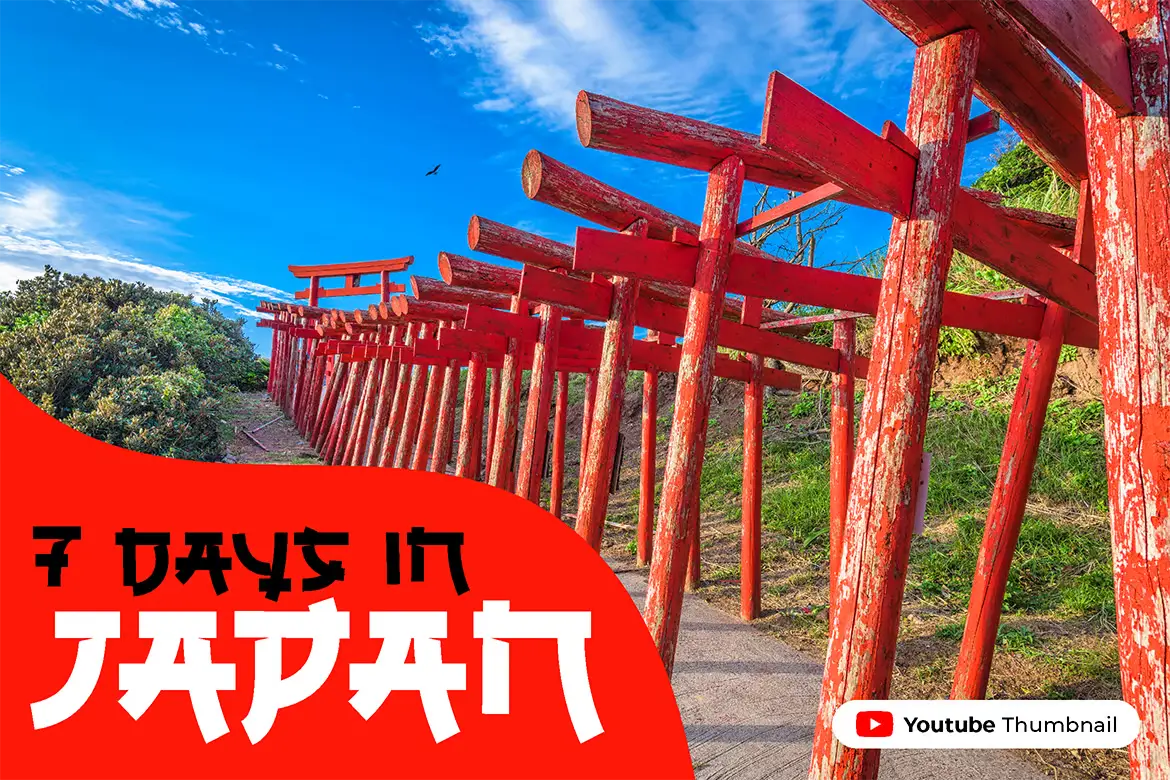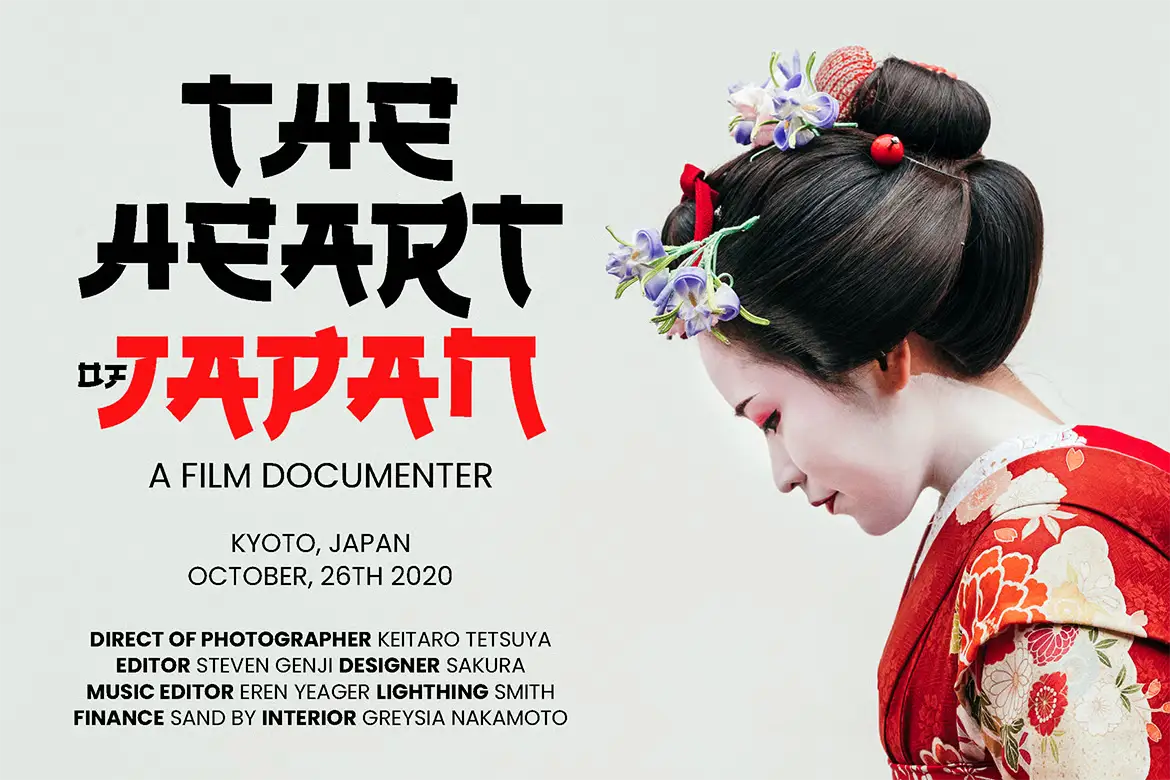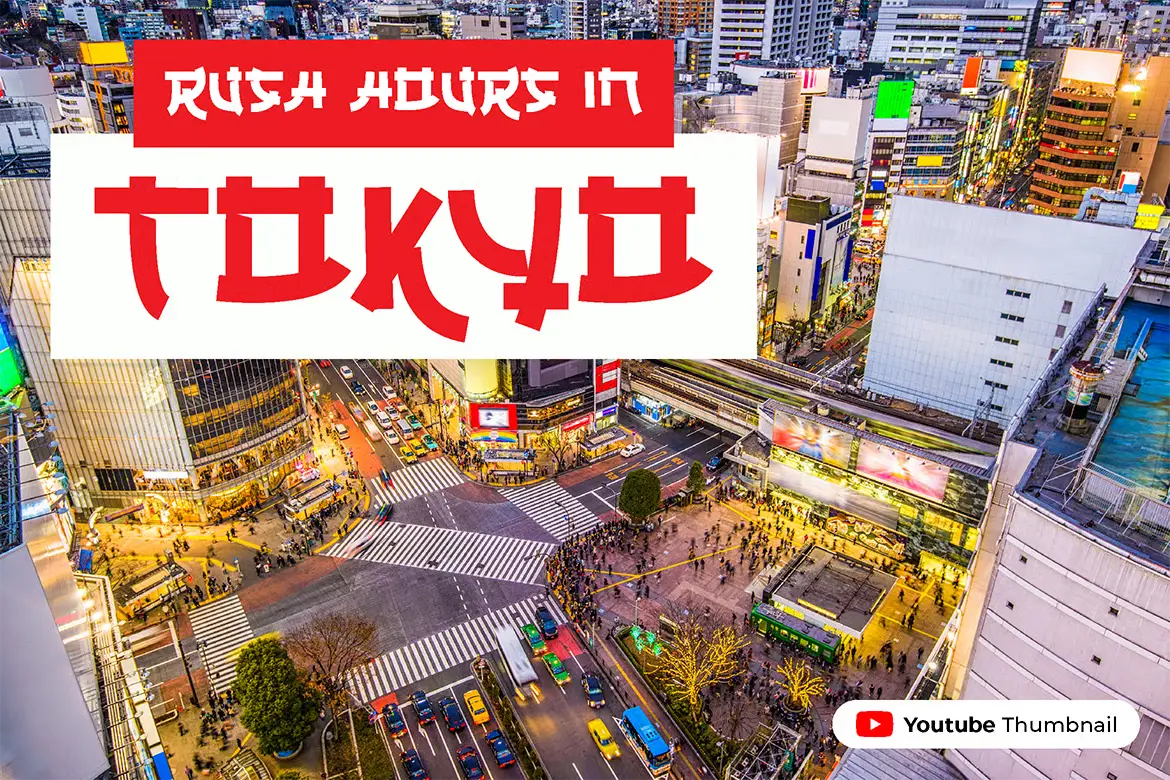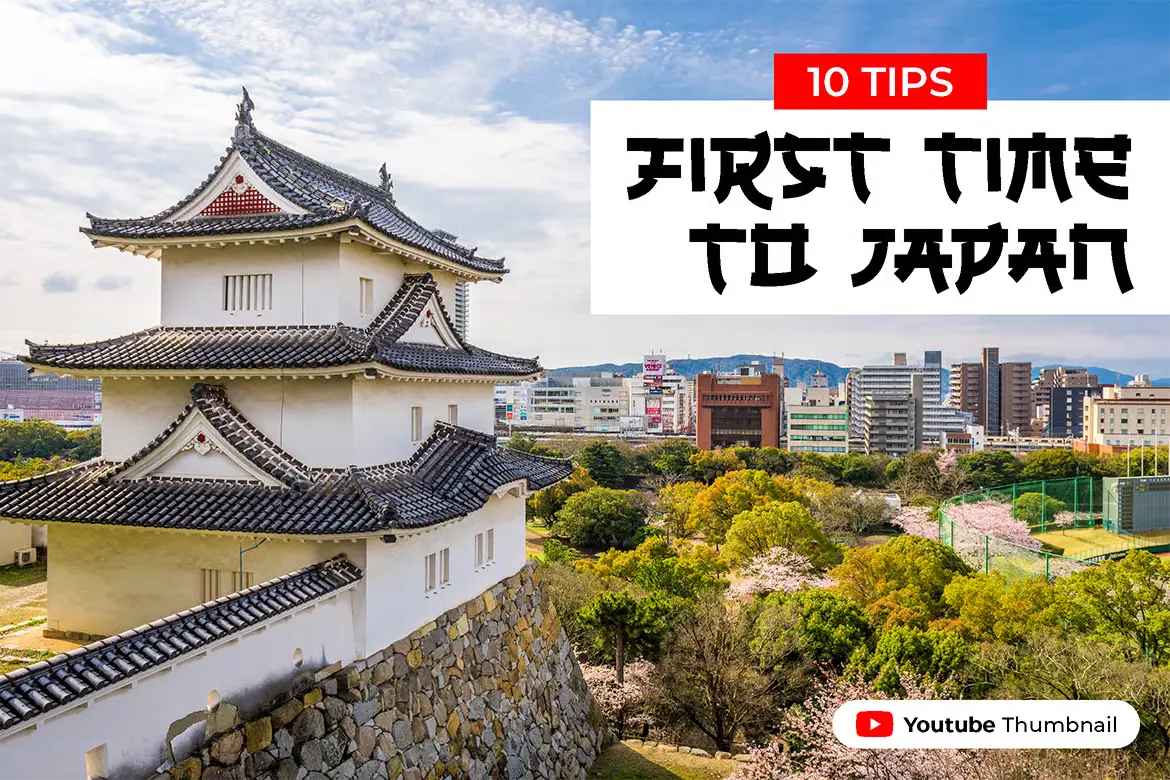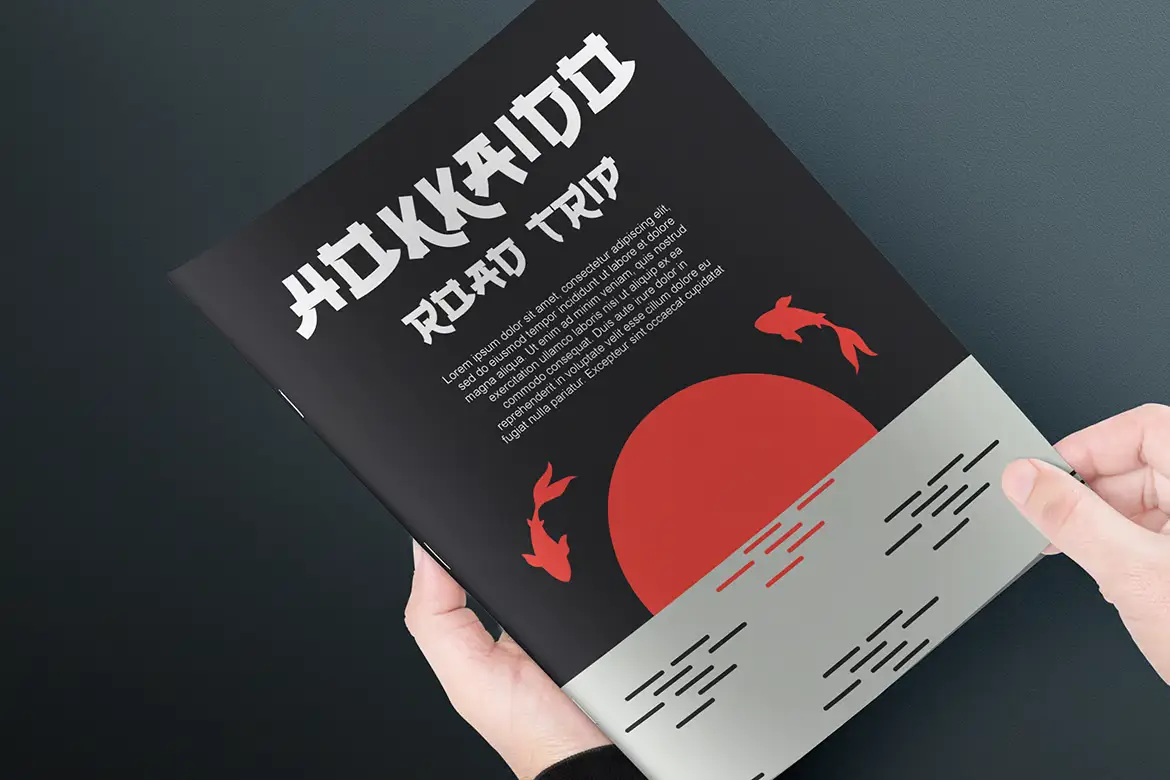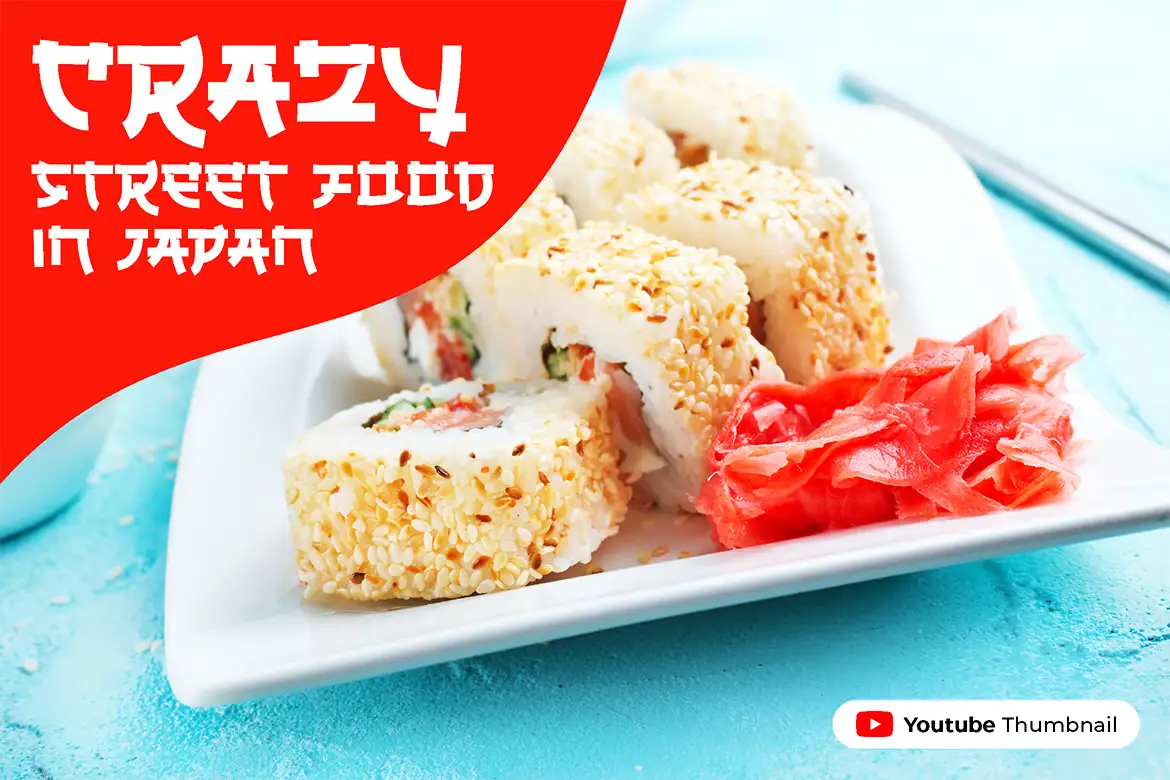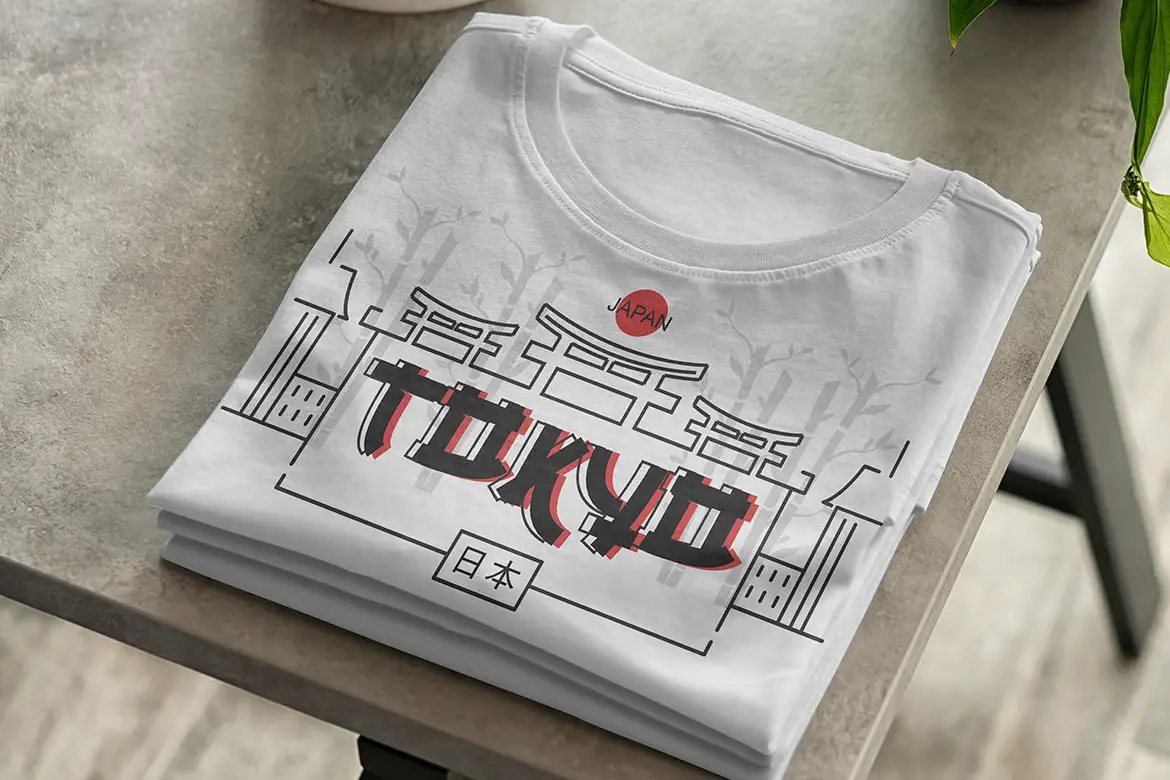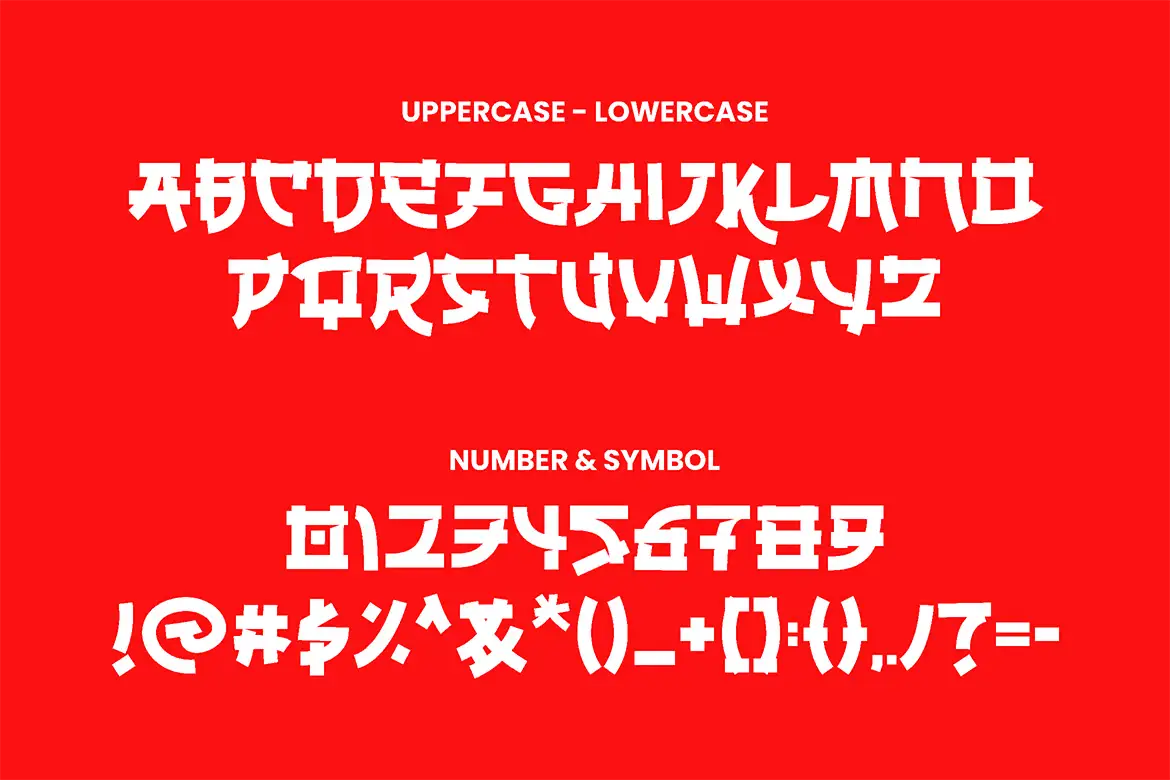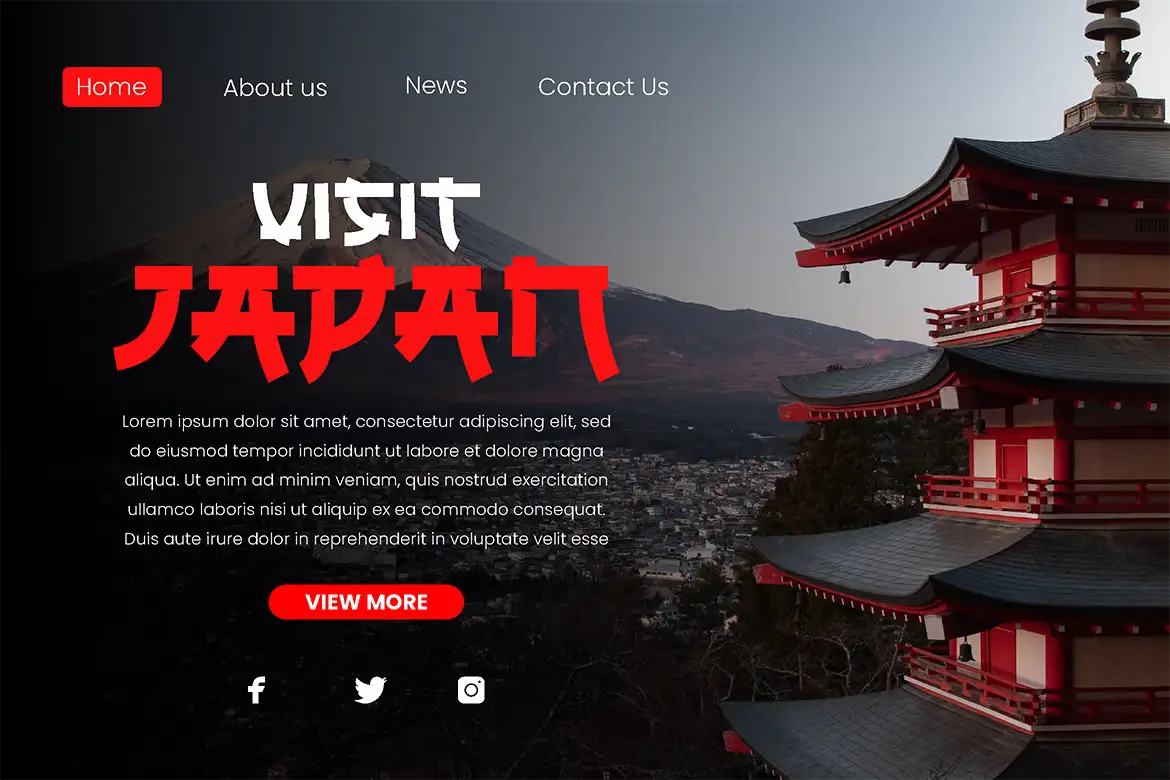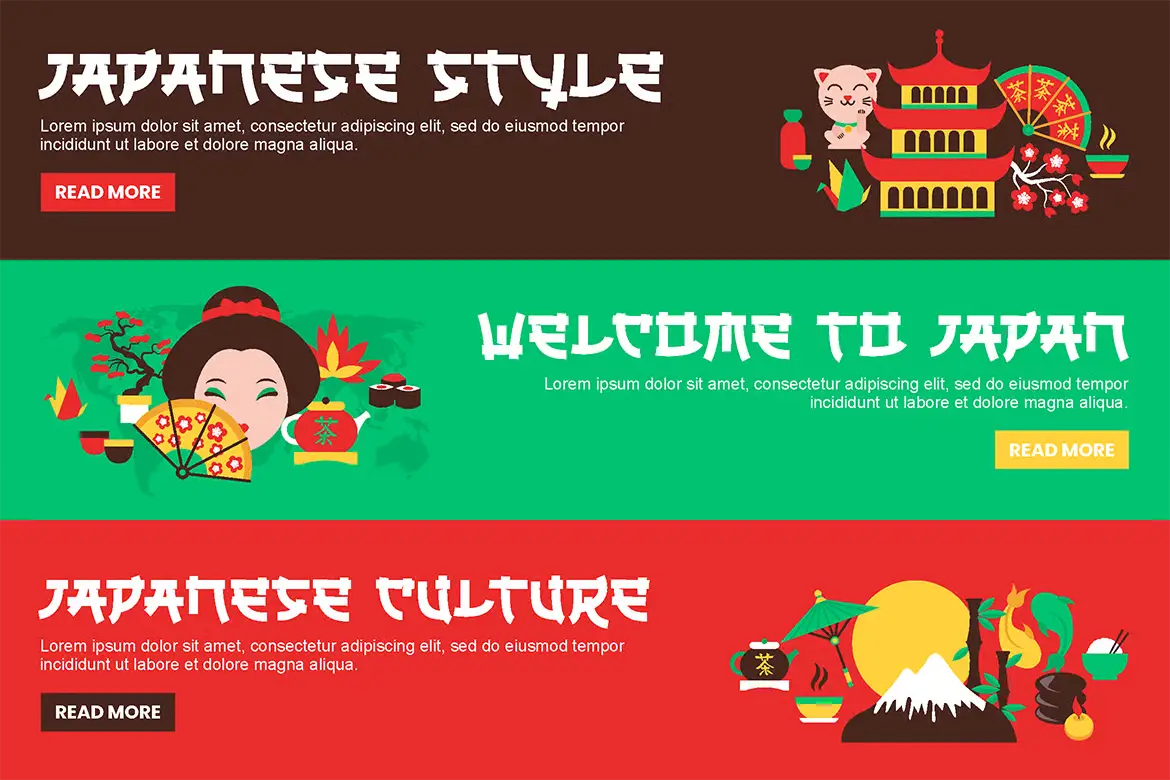
Ungai – Faux Japanese Asian Font
Introducing Ungai, a bold display font that pays homage to Japanese aesthetics. With its blocky, geometric strokes and stylized terminals, Ungai captures the essence of East Asian calligraphy while ensuring modern legibility. This font is a perfect blend of tradition and technology, delivering high visual impact in every character.
Ungai is designed with confident, angular shapes and a modular rhythm, evoking a powerful contemporary Japanese aesthetic. Its bold and structured vibe makes it ideal for attention-grabbing layouts in various contexts, including tourism ads, sushi menus, Japanese-style thumbnails, retro gaming titles, and cultural documentaries.
• ✅ Culturally-Inspired Lettering → Bold, squared design influenced by Japanese visual culture.
• ✅ Strong Vertical Proportions → Wide spacing enhances readability, making it suitable for various applications.
• ✅ Versatile Usability → Perfect for both traditional and futuristic layouts.
• ✅ Ideal for Global Creatives → Designed for restaurant menus, travel posters, vlogs, K-pop packaging, and Tokyo-inspired branding.
• ✅ Highly Visible → Great for educational or entertainment design projects, ensuring your message stands out.
Ungai is not just a typeface; it’s a bridge between cultural storytelling and digital branding. Its sharp angles and rhythmic geometry make it a go-to choice for branding professionals working on East Asian projects, tourism campaigns, or apps targeting anime and gaming audiences. Whether you are crafting a YouTube vlog thumbnail about Japan or designing packaging for sushi delivery, Ungai brings immediate cultural identity and modern relevance to your work.
• Creatives working on Japanese-themed projects
• Designers of travel and cultural materials
• Marketers targeting anime and gaming audiences